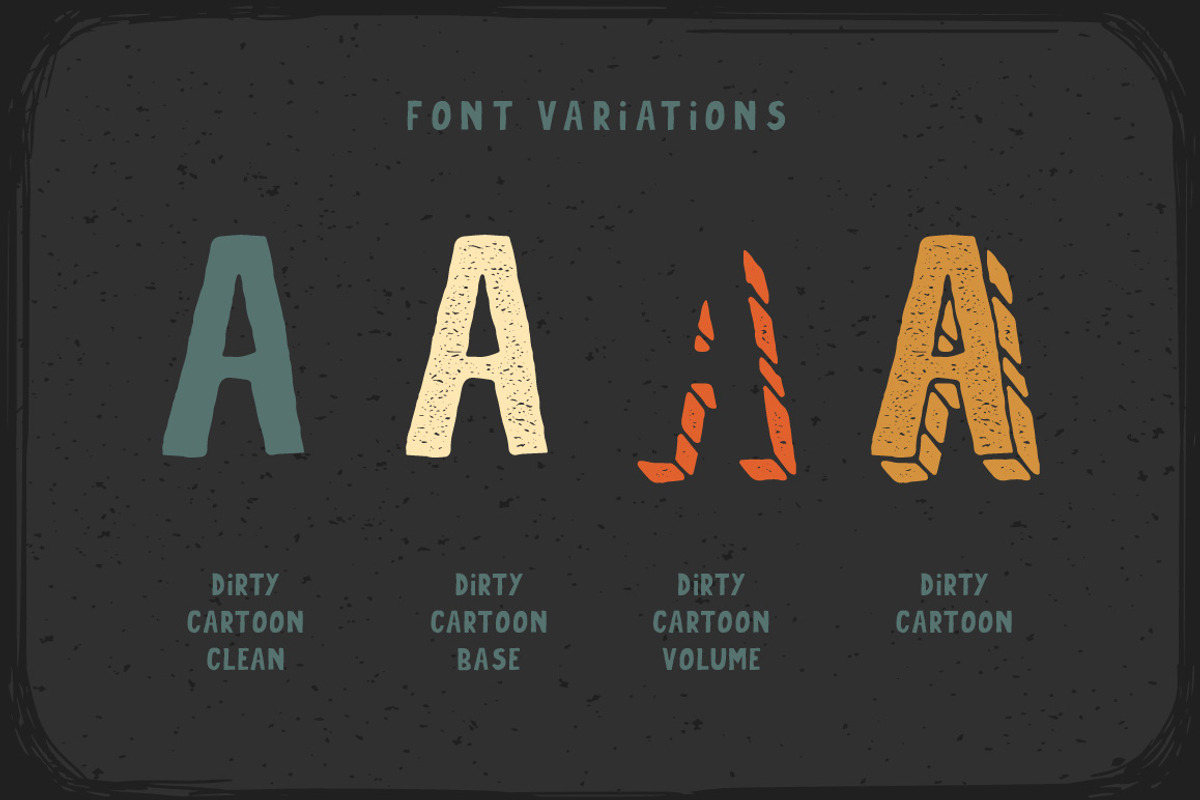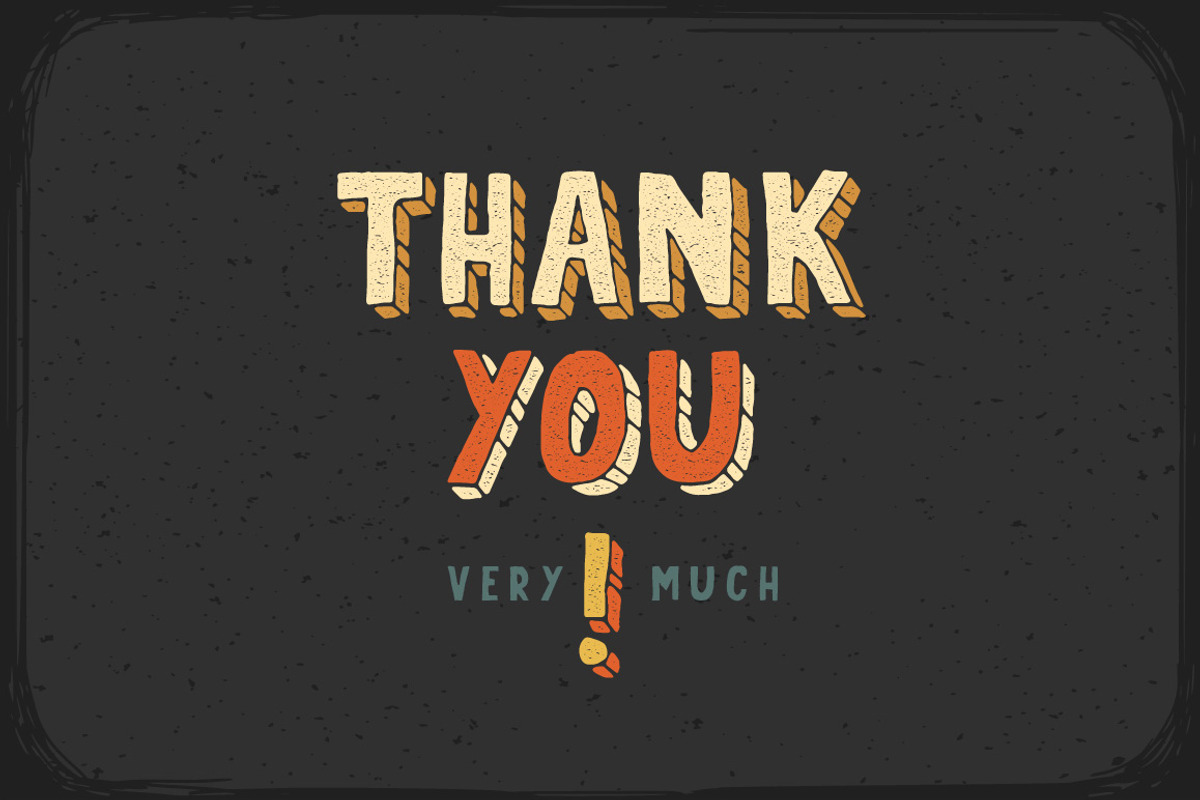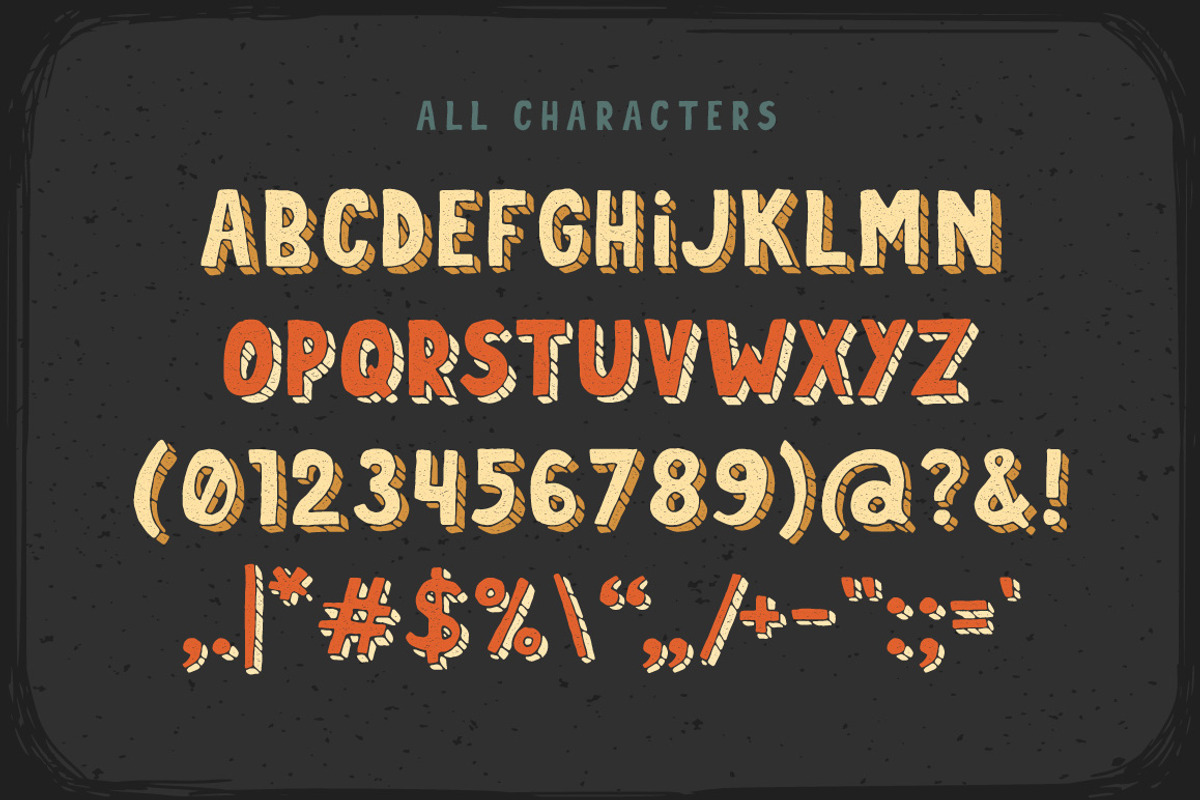
Dirty Cartoon font
Dirty Cartoon font by Gleb Guralnyk is a font selected for branding, posters, packaging, typography.
- Dirty Cartoon Regular
- Dirty Cartoon Base Regular
- Dirty Cartoon Clean Regular
- Dirty Cartoon Volume Regular
Why Dirty Cartoon font is worth a look
Dirty Cartoon font by Gleb Guralnyk fits naturally into Branding, posters, packaging, typography.